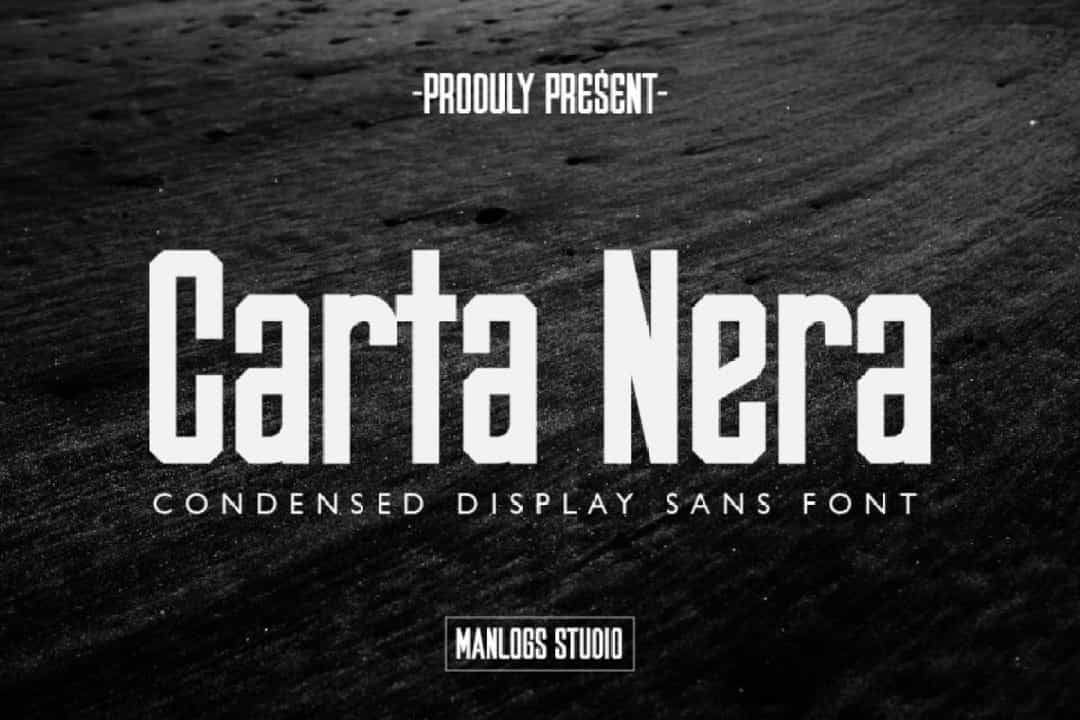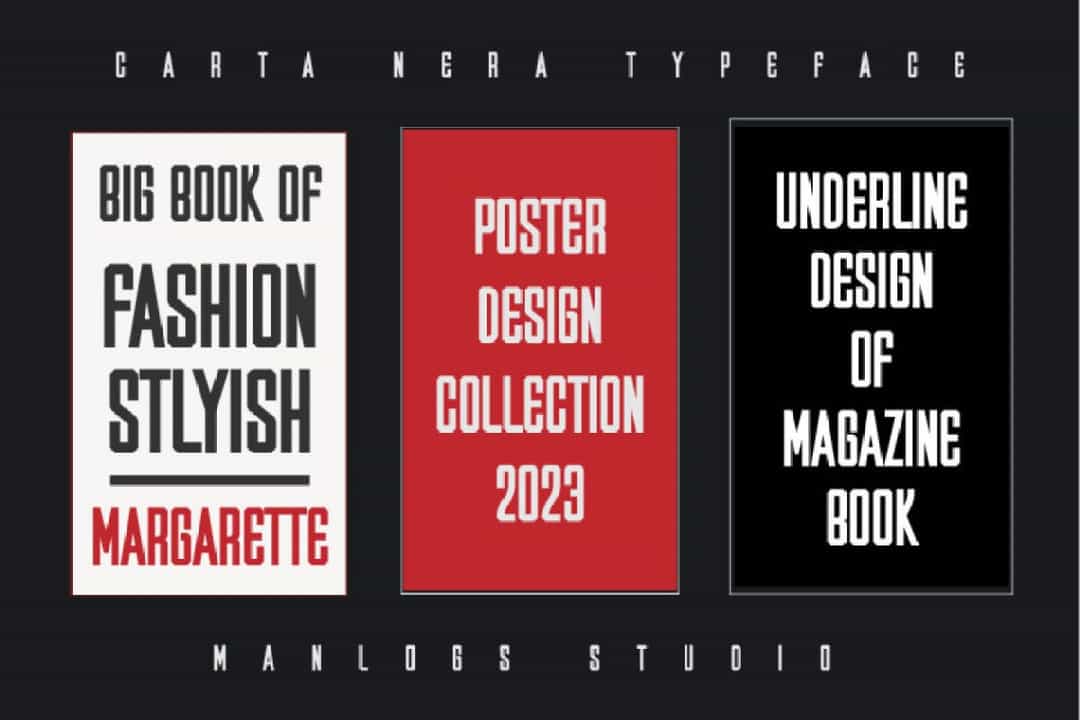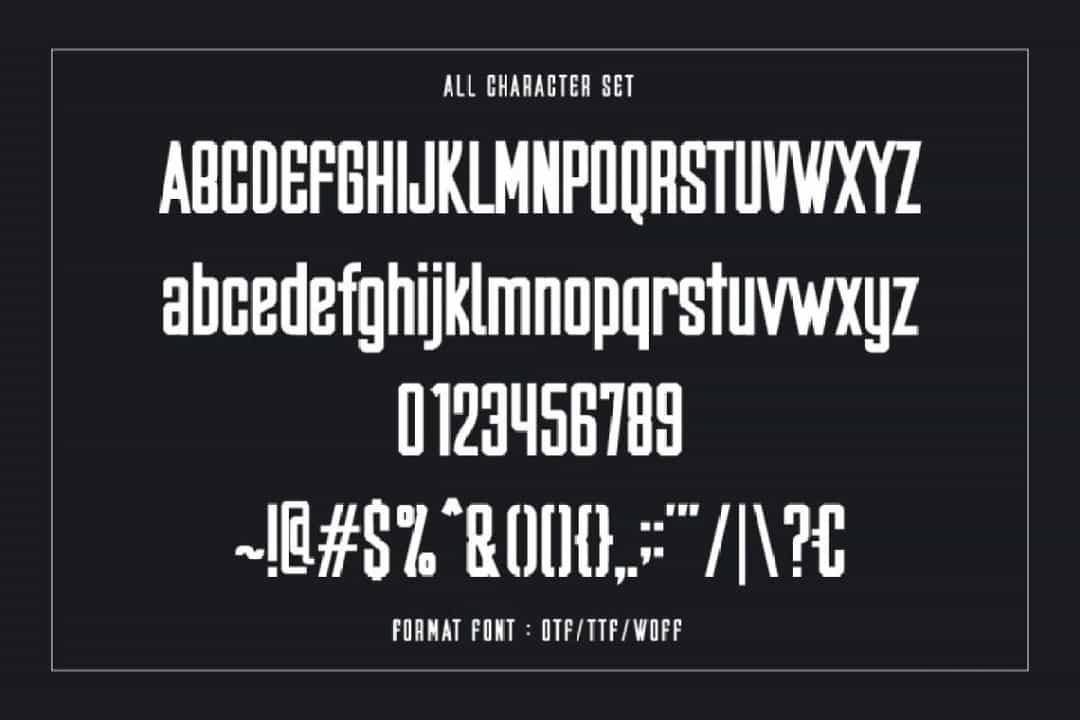
CARTA NERA can be described as an impressively simplified display without font, featuring athletic and striking qualities. Punched corners and round edges soften some of its roughness while its immense height x makes this font all the more stylish for your design or project.